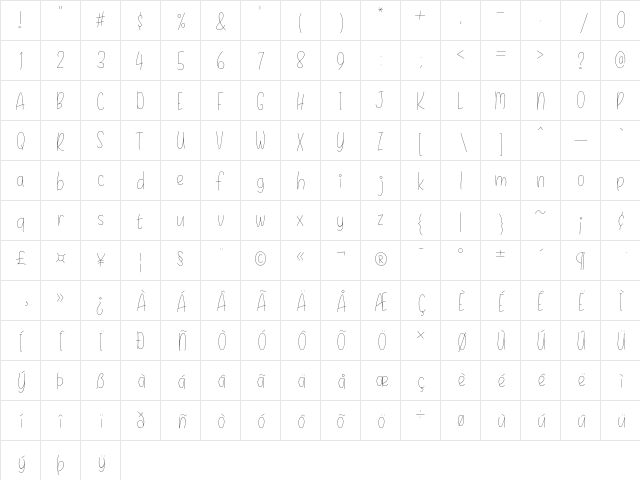
Daisy Rae Thin
| Designer | Russ McMullin |
Design Context for Daisy Rae Typeface
Daisy Rae takes a measured approach to typography — its balanced proportions and neutral character make it a reliable workhorse for both digital and print work. Its slender proportions lend an understated elegance to any composition.